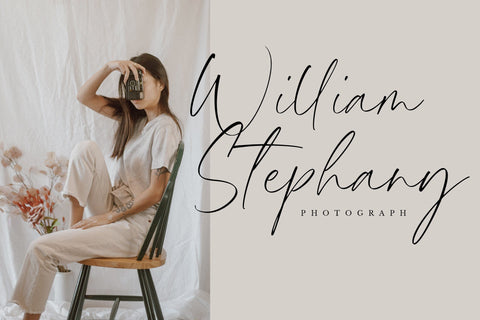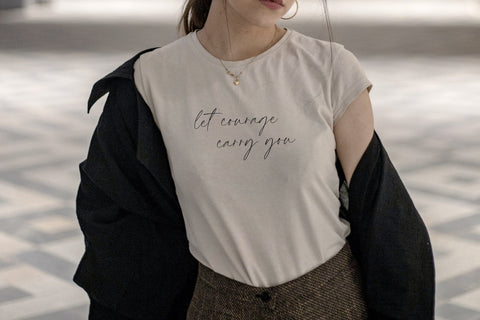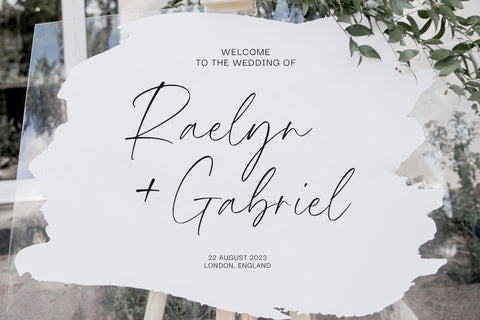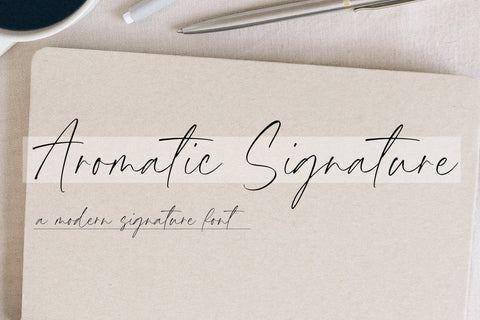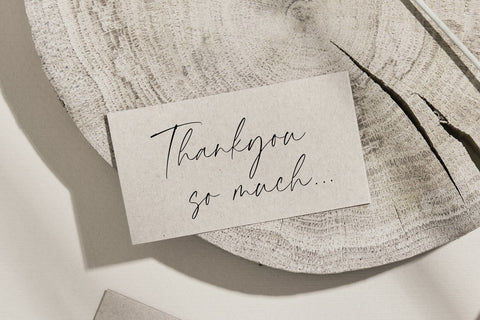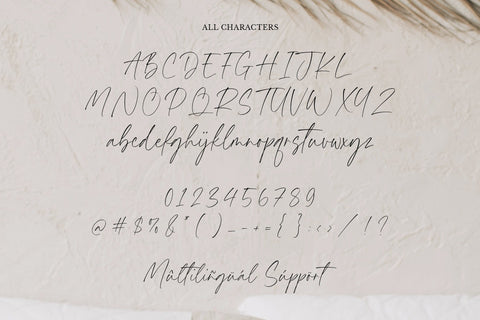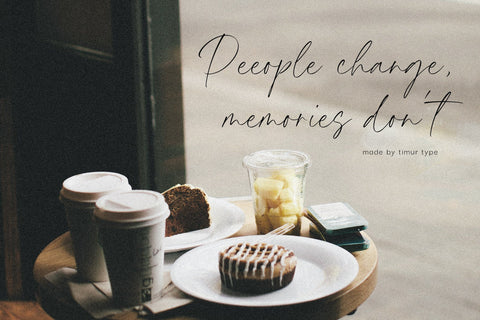
Aromatic Signature - Modern signature font
Aromatic Signature is a Modern Signature font that is modern and fresh, and will bring a warm and inviting feel to your business. Take advantage of the fonts and experience the magic for yourself.
Aromatic Signature is perfect for product packaging, branding project, megazine, social media, wedding, or just used to express words above the background.
Aromatic Signature also multilingual support.
Aromatic Signature Font Features premium :
-Full Set of standard alphabet and punctuation